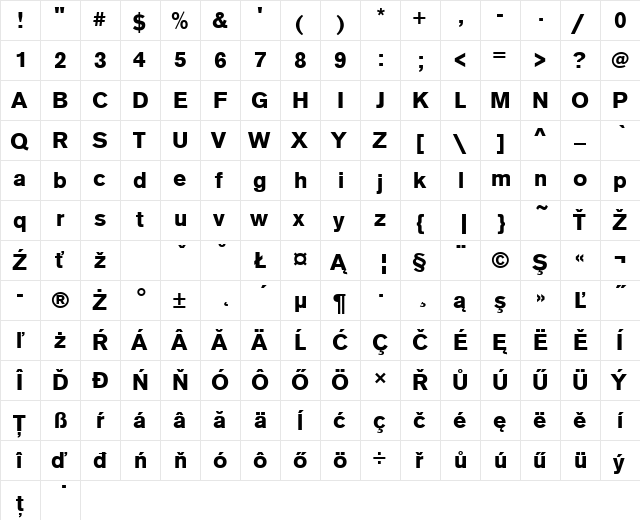
AcciusTEE Bold
Design Context for AcciusTEE Typeface
AcciusTEE takes a measured approach to typography — its balanced proportions and neutral character make it a reliable workhorse for both digital and print work. The heavy weight commands attention and anchors typographic hierarchies.